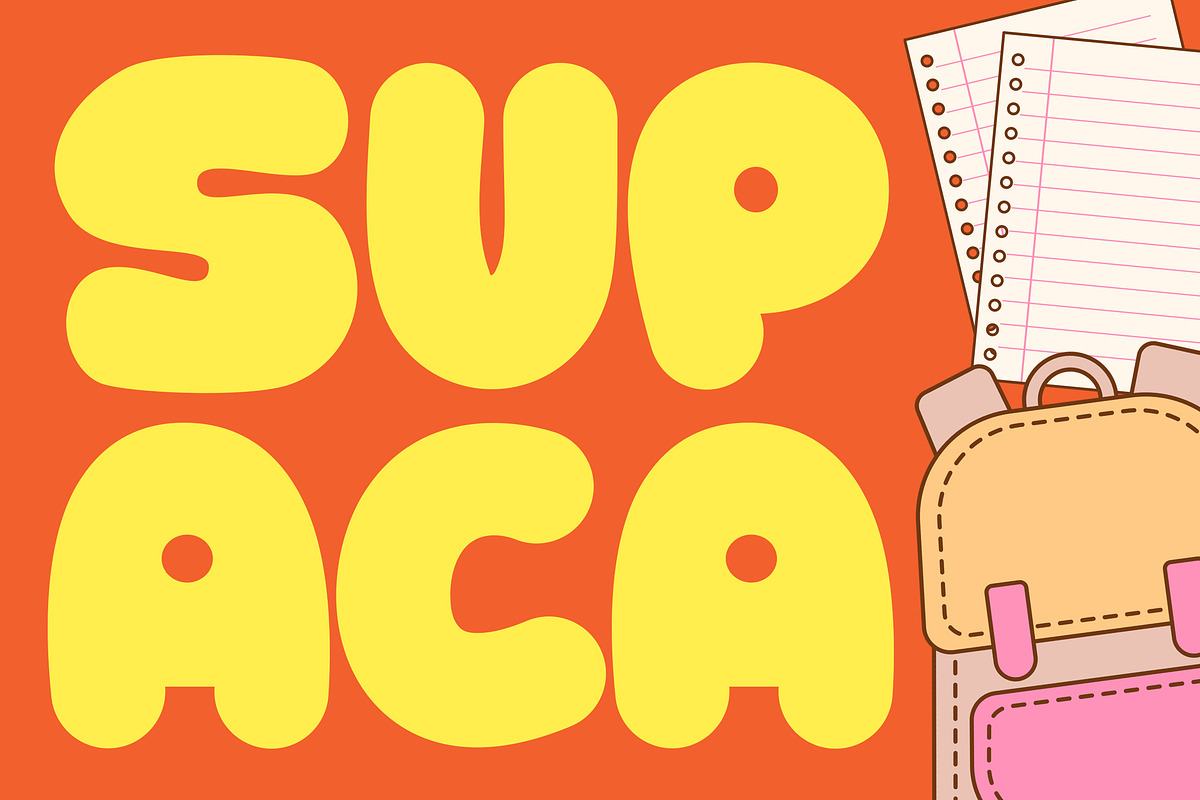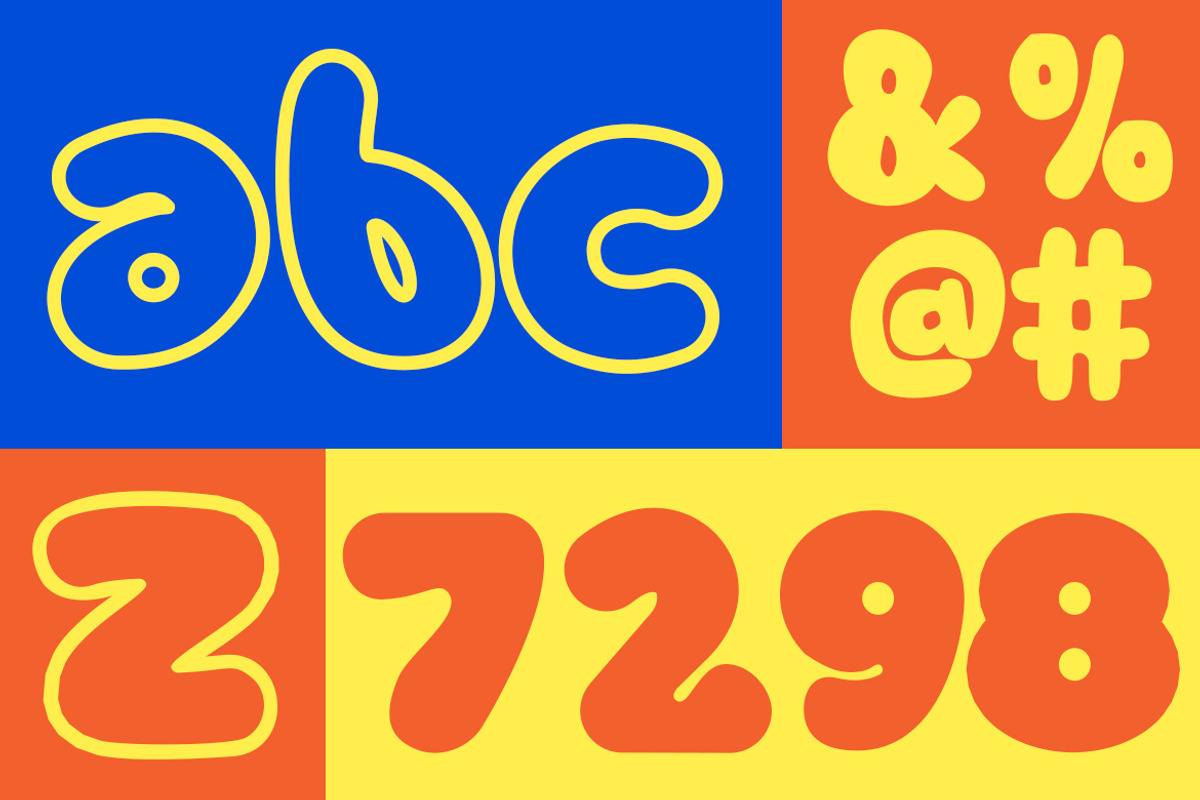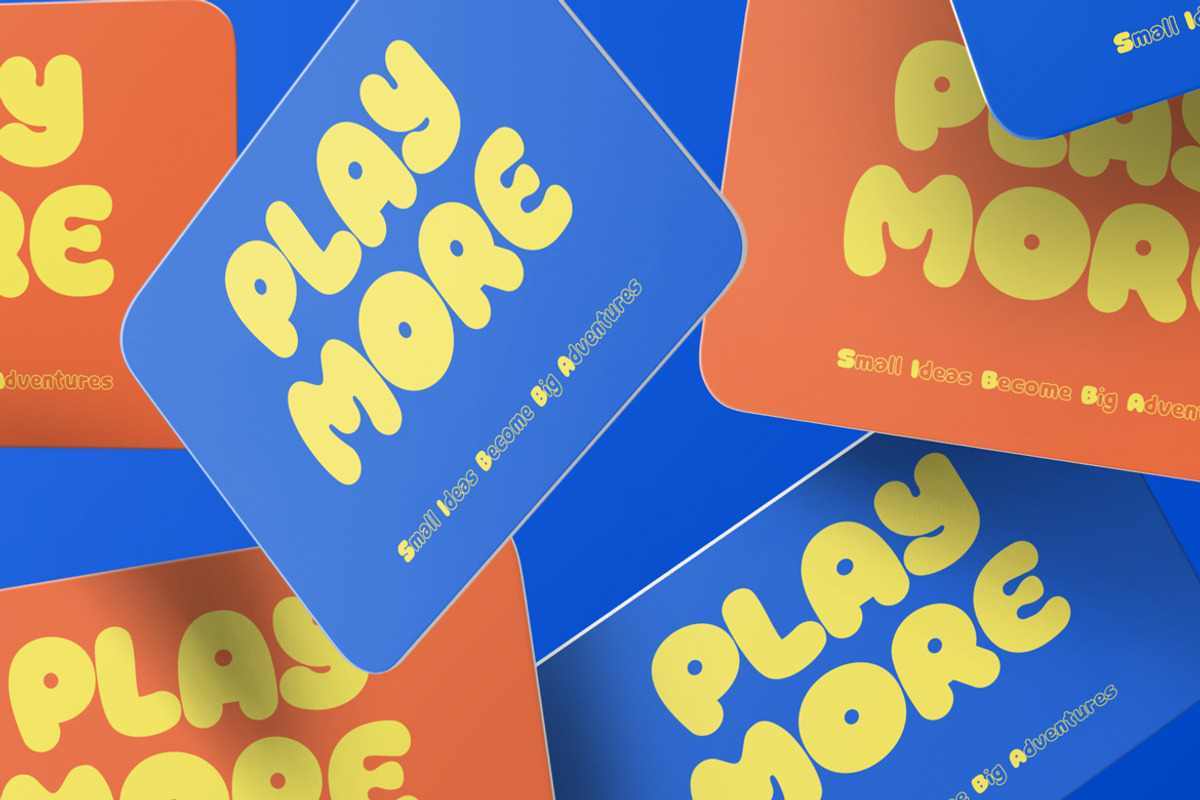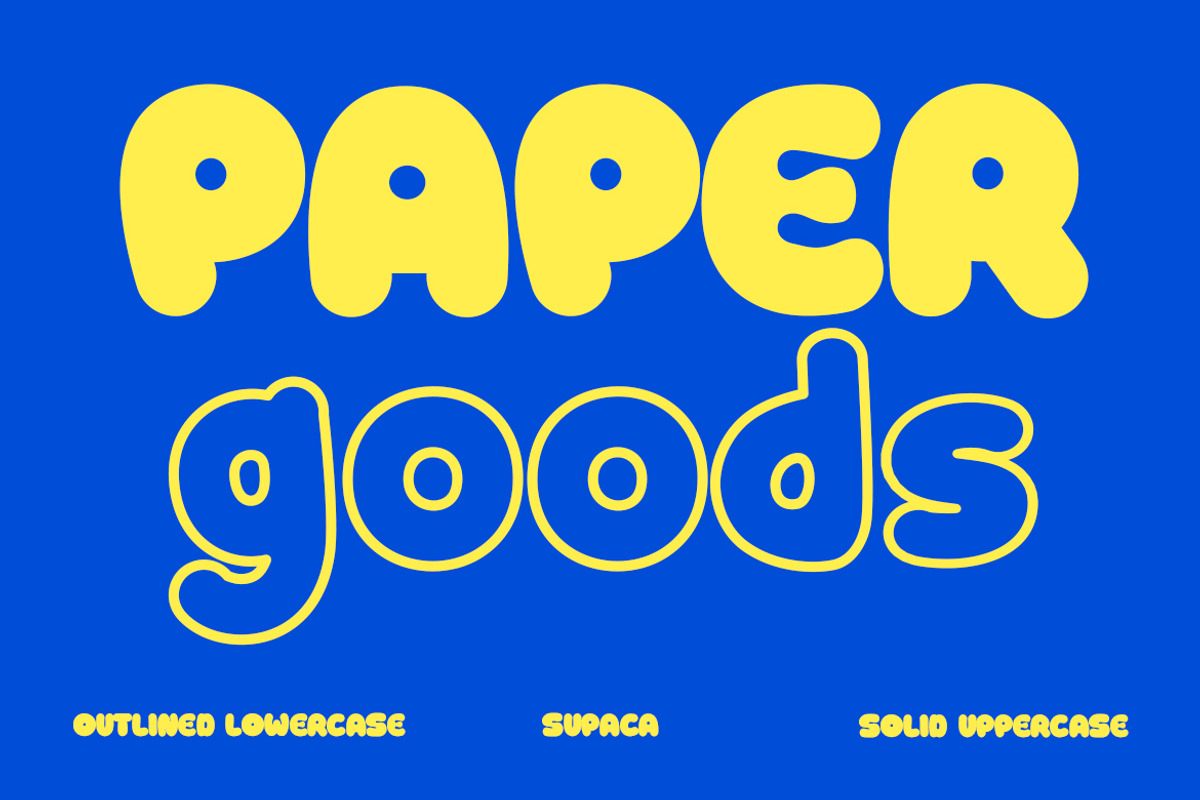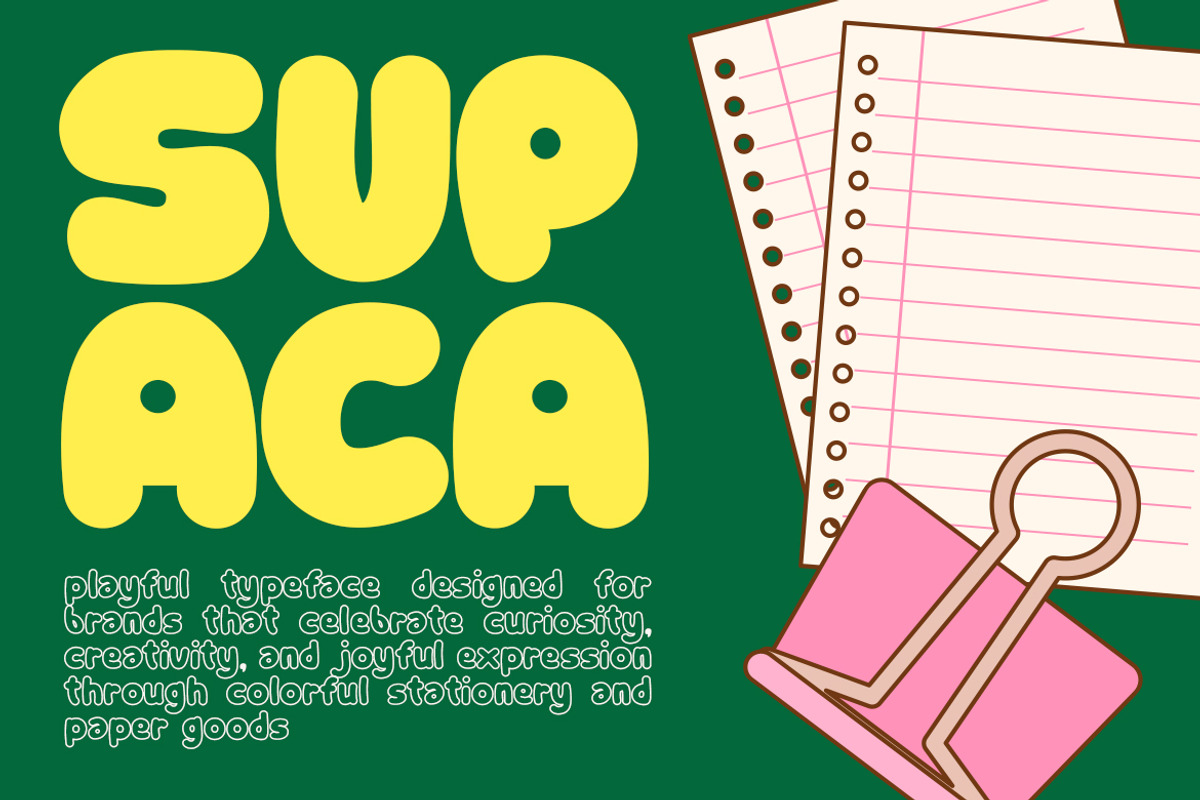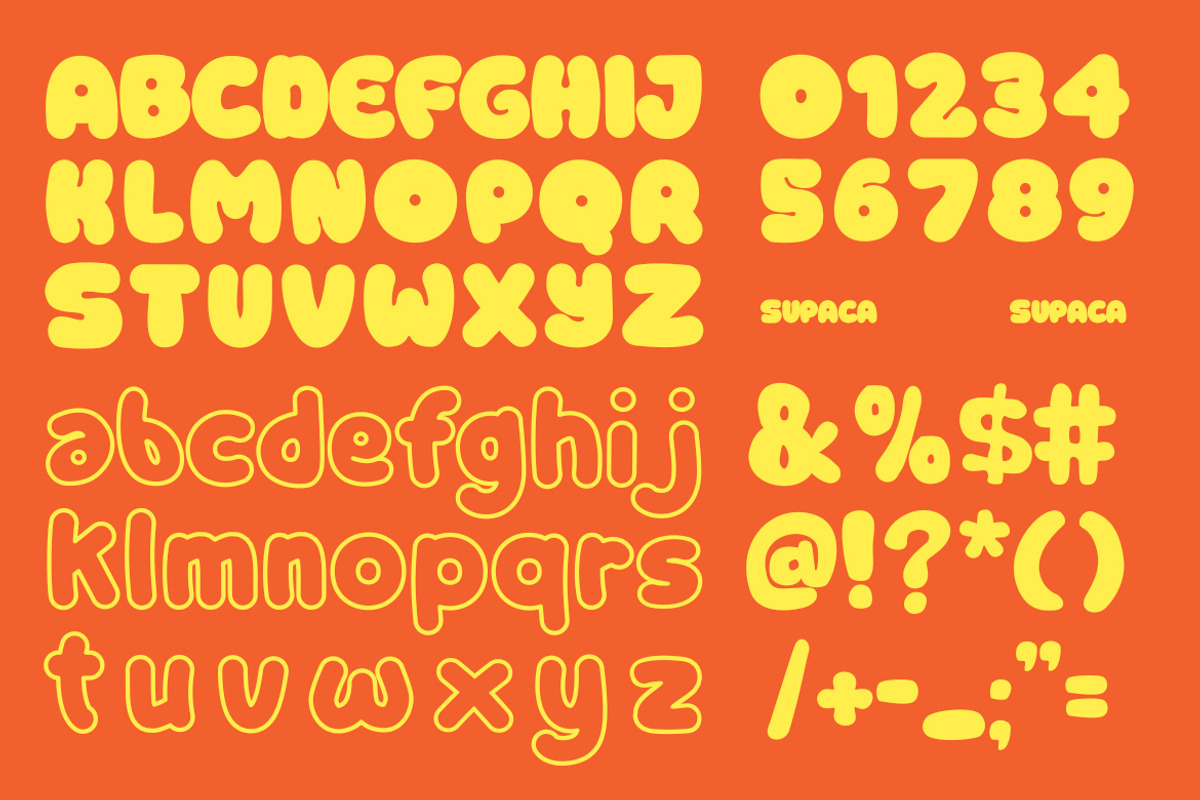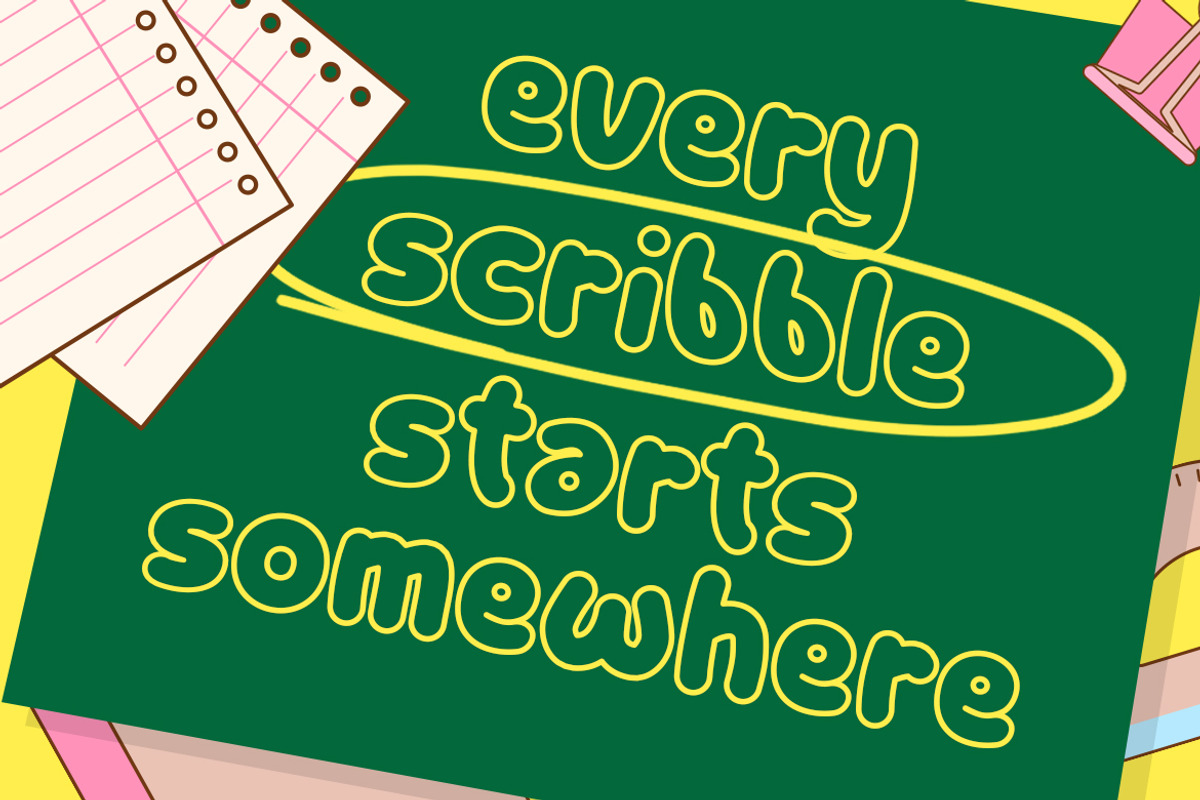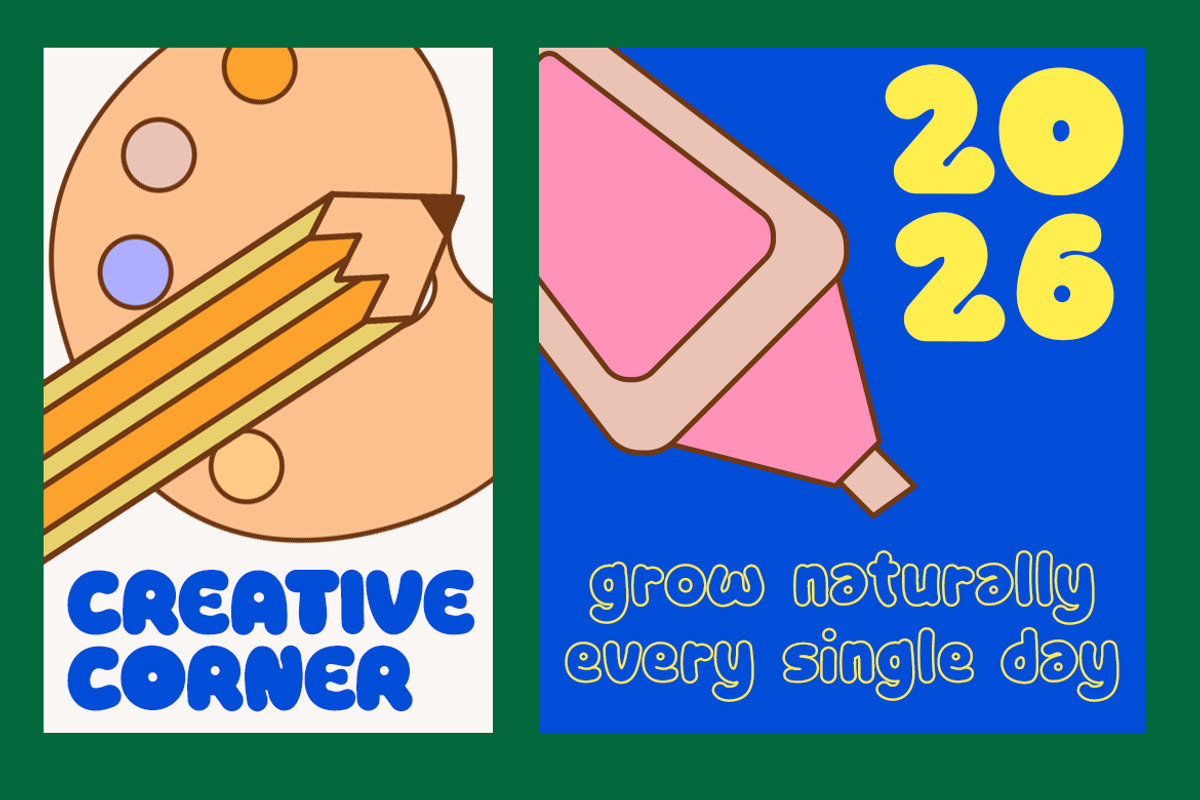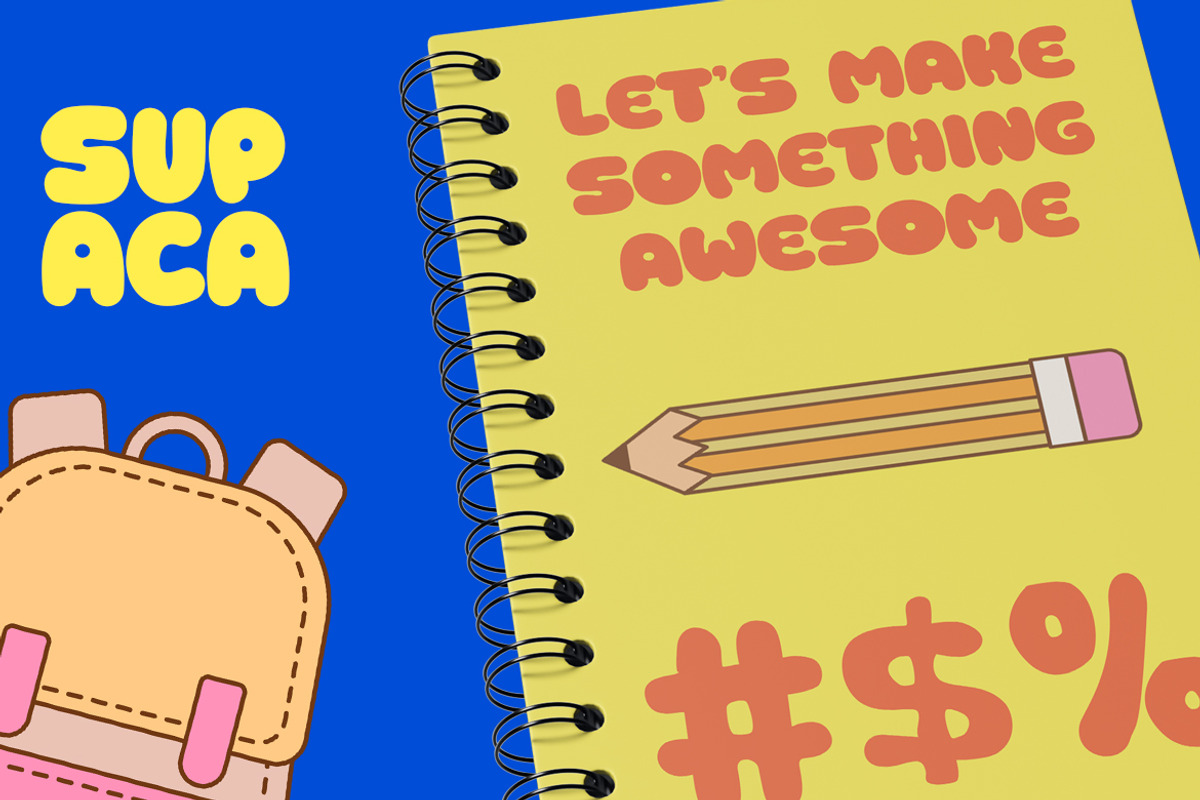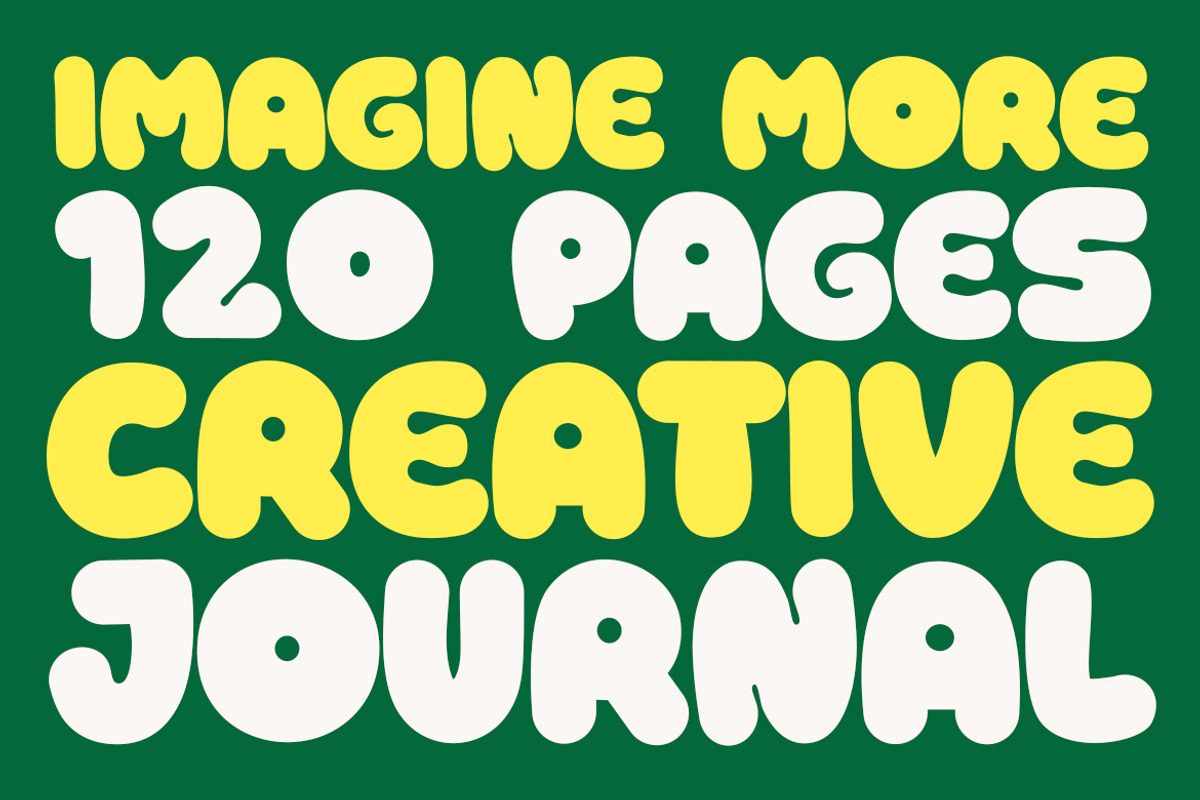
Supaca
Kids Font Supaca – Bright Bubble Display Font for Kids Branding & Playful Creative Projects
Kids Font Supaca is a cheerful bubble display font designed to fill every project with joy, energy, and bold personality. Featuring chunky rounded letterforms, soft curves, and a smooth handcrafted feel, this font creates a fun visual style that’s both eye-catching and easy to read. Moreover, its playful shapes instantly add warmth and excitement, making every headline feel friendly and unforgettable. As a result, your designs stand out with a vibrant, happy character that appeals to all ages.